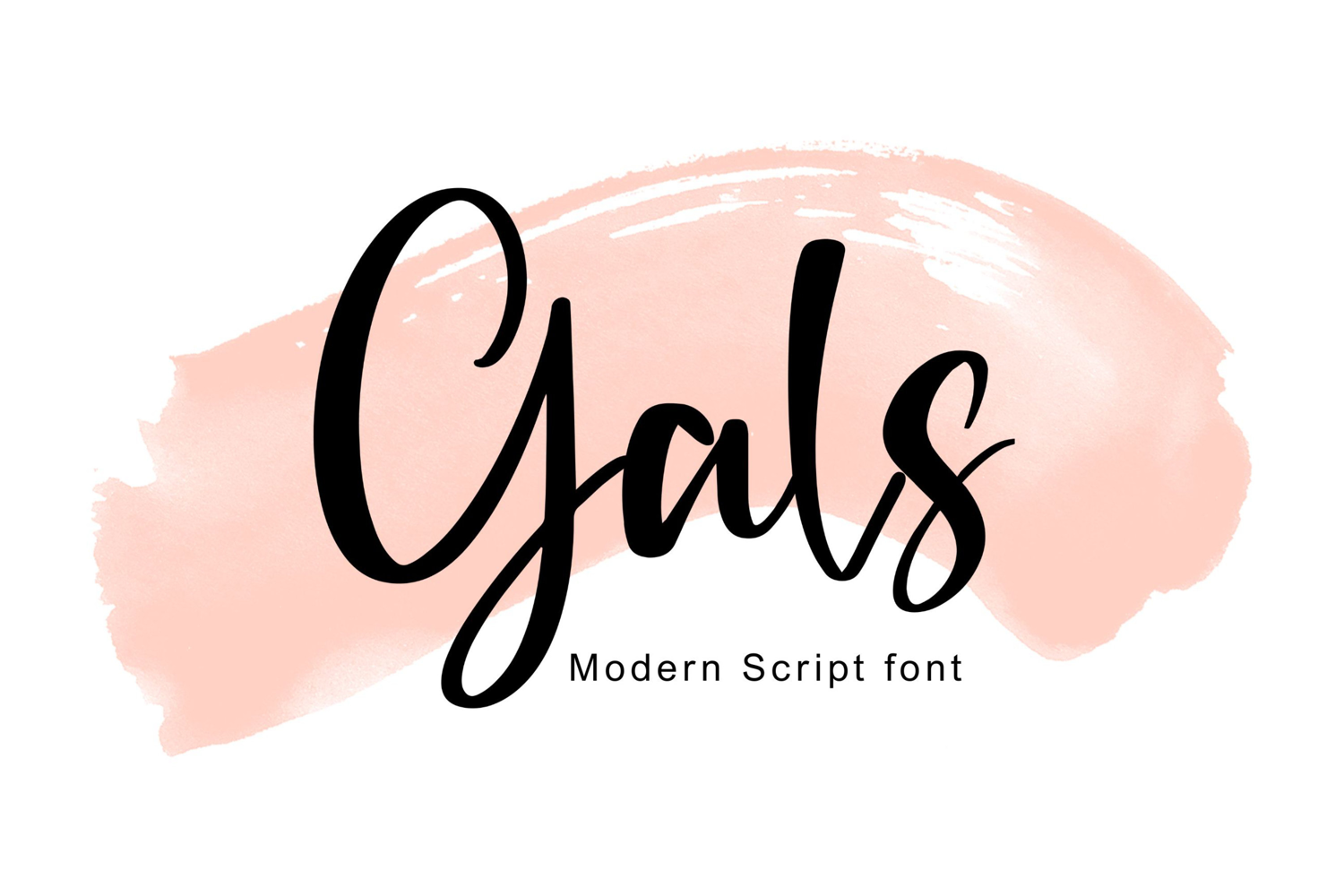
Gals - Handwritten Script Font for Crafting and Branding
Hi! We just release new font name is Gals. Gals inspired by feminime but expresive still. you can use Gals for social media, logo, printed products, website, crafting, and many more.